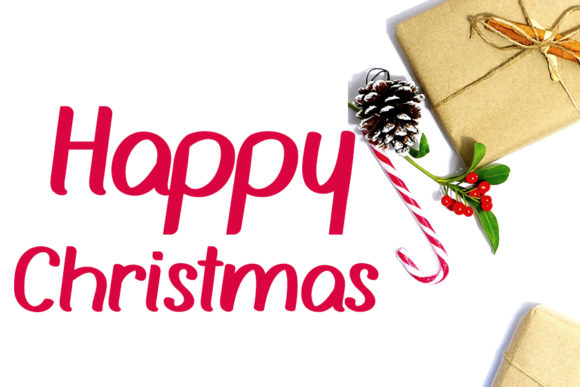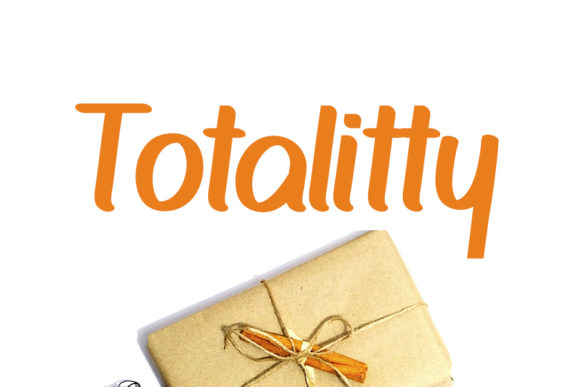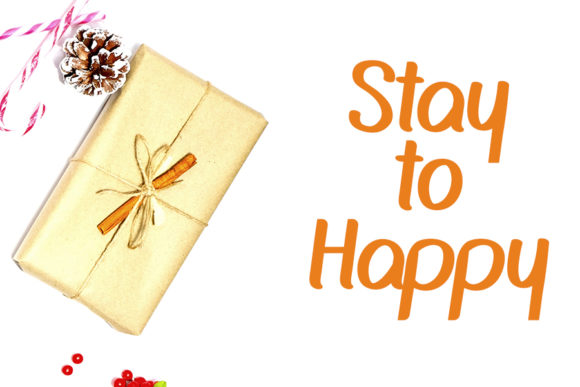
Introduction to Shopphia Font
Shopphia is a friendly and casual handwritten font.
Fall in love with its incredibly versatile style and use it to create gorgeous wedding invitations, beautiful stationary art, eye-catching social media posts, and much more .
Key Features of Shopphia Font
Why Choose Shopphia Font?
Shopphia Font offers exceptional quality and versatility, making it a valuable addition to your design toolkit. Whether you’re creating for personal projects or commercial use, Shopphia Font delivers professional results.